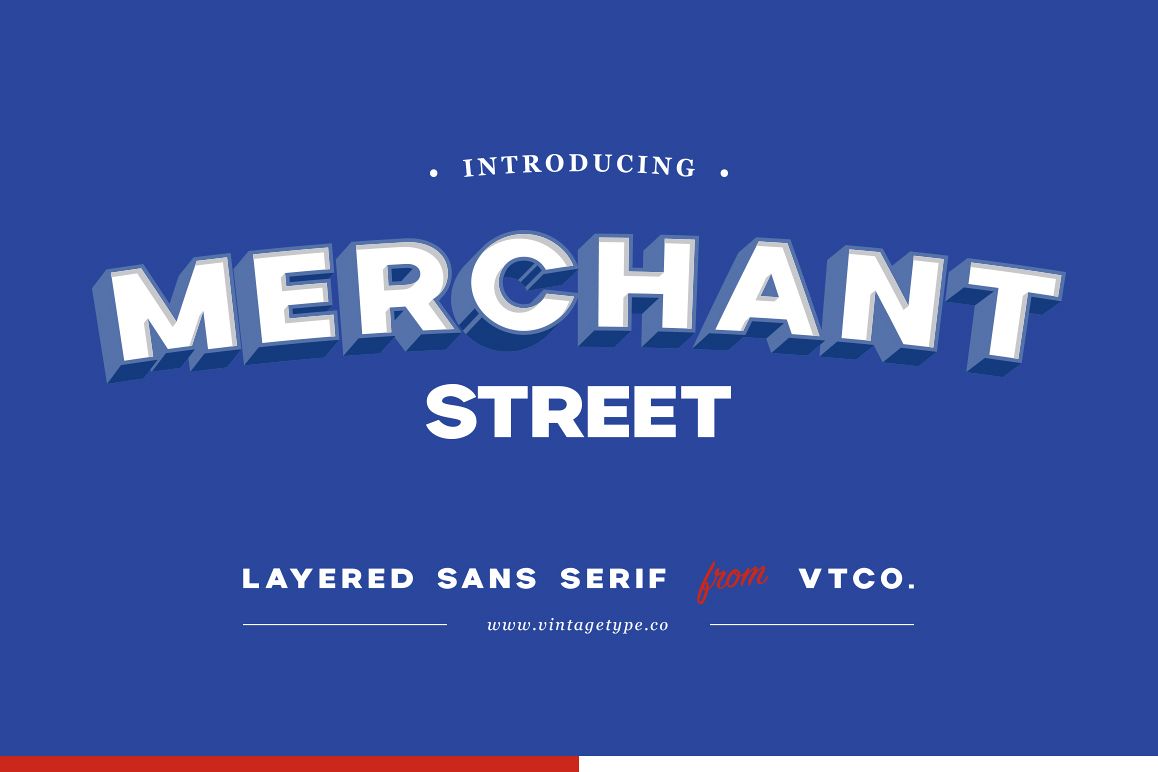
Merchant Street Sans
Merchant Street Sans is a big, bold, all caps sans serif that comes in a family of 8 stackable fonts. The concept comes from old hand-painted signage & facades and is the perfect font choice for sign painters.
Stack different layers on top of each other, and change the colours in an instant, or add your own pattern fills or textures to each layer for unlimited style combinations.
Merchant Street comes with a full alphabet, numerals, punctuation, and multilingual support for the following languages:
Merchant Street Sans
By Vintage Type Co.